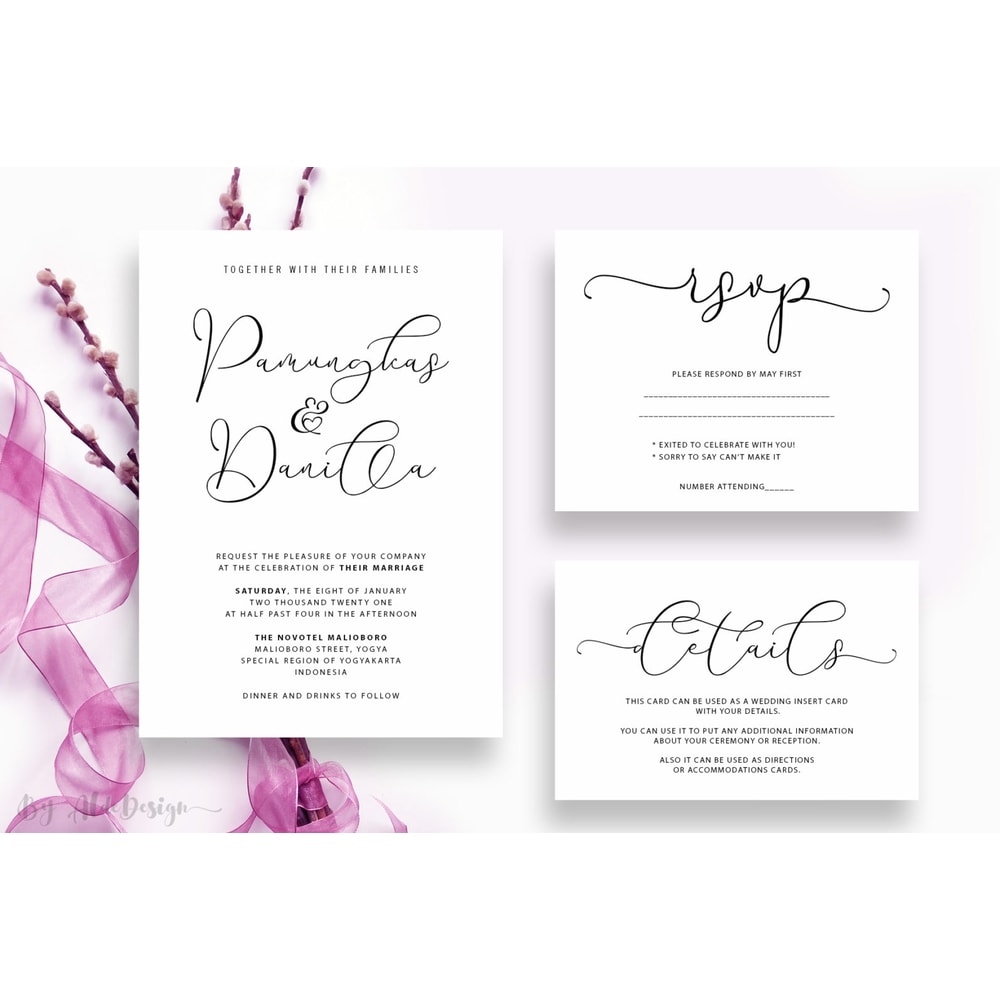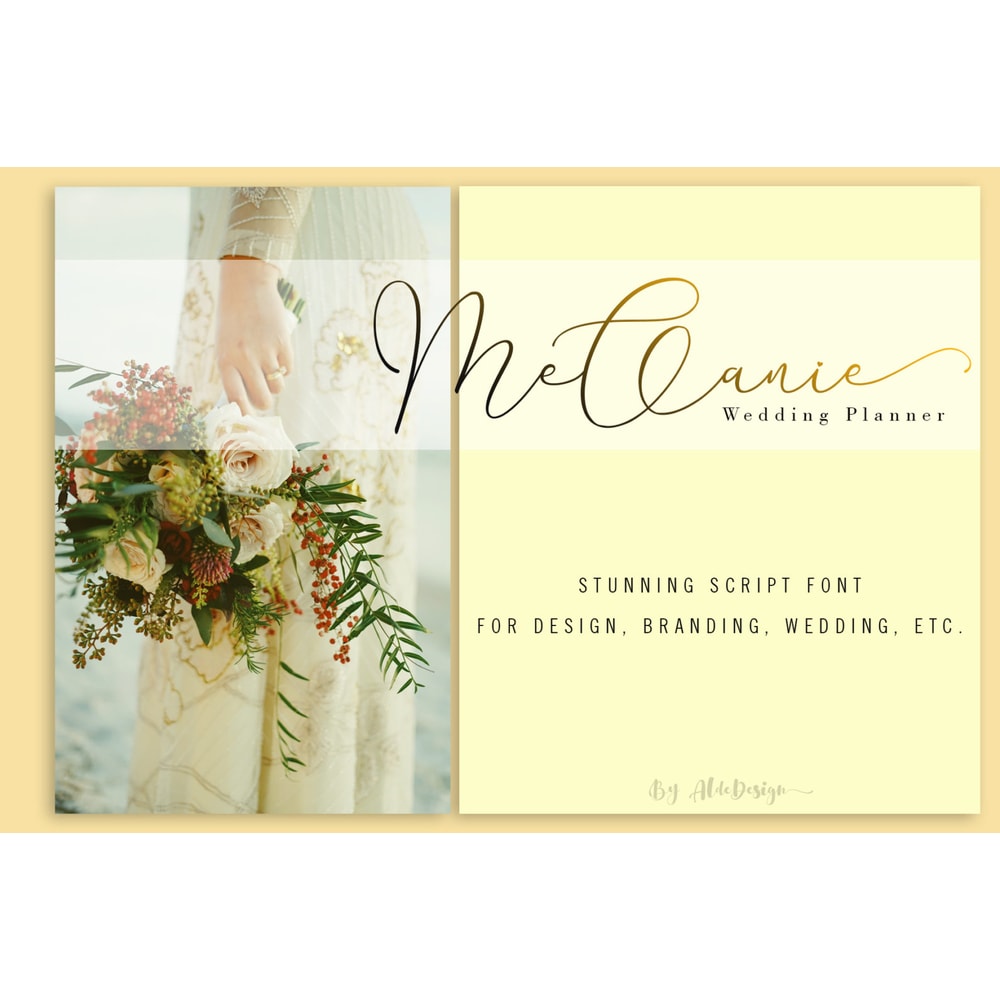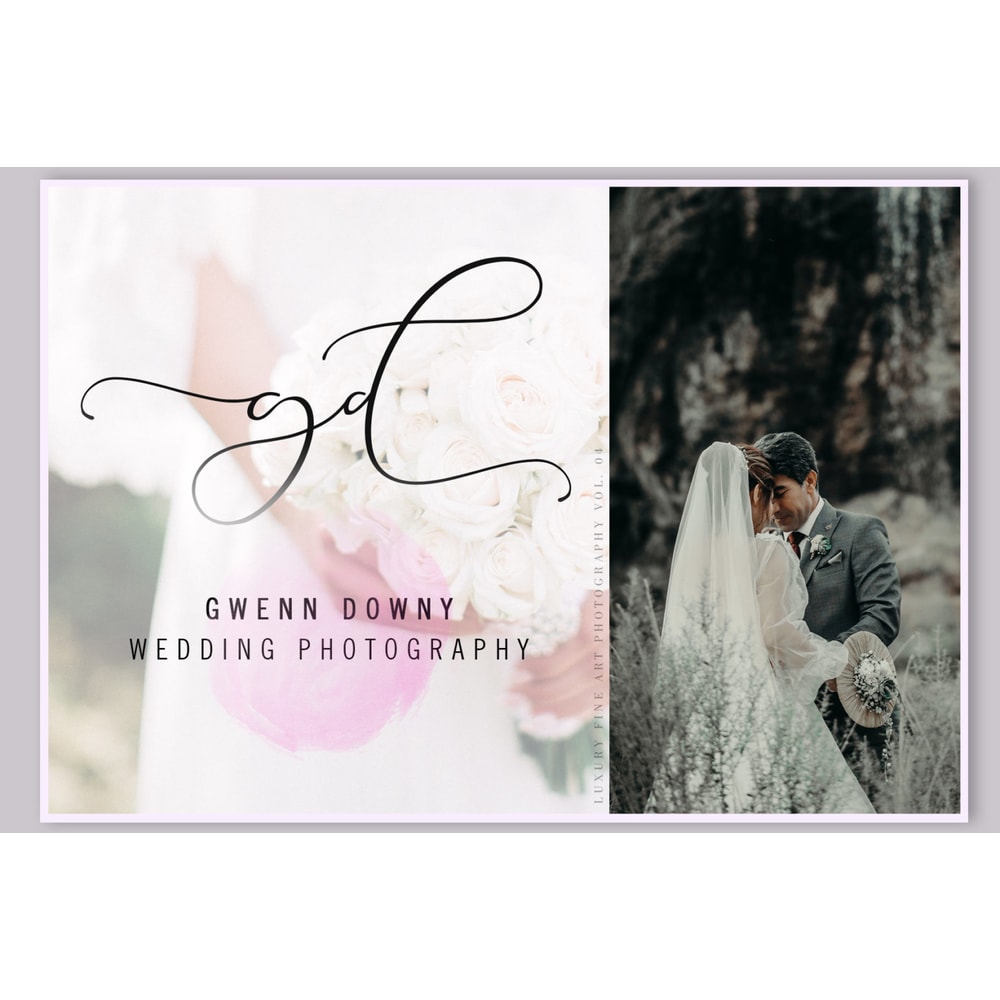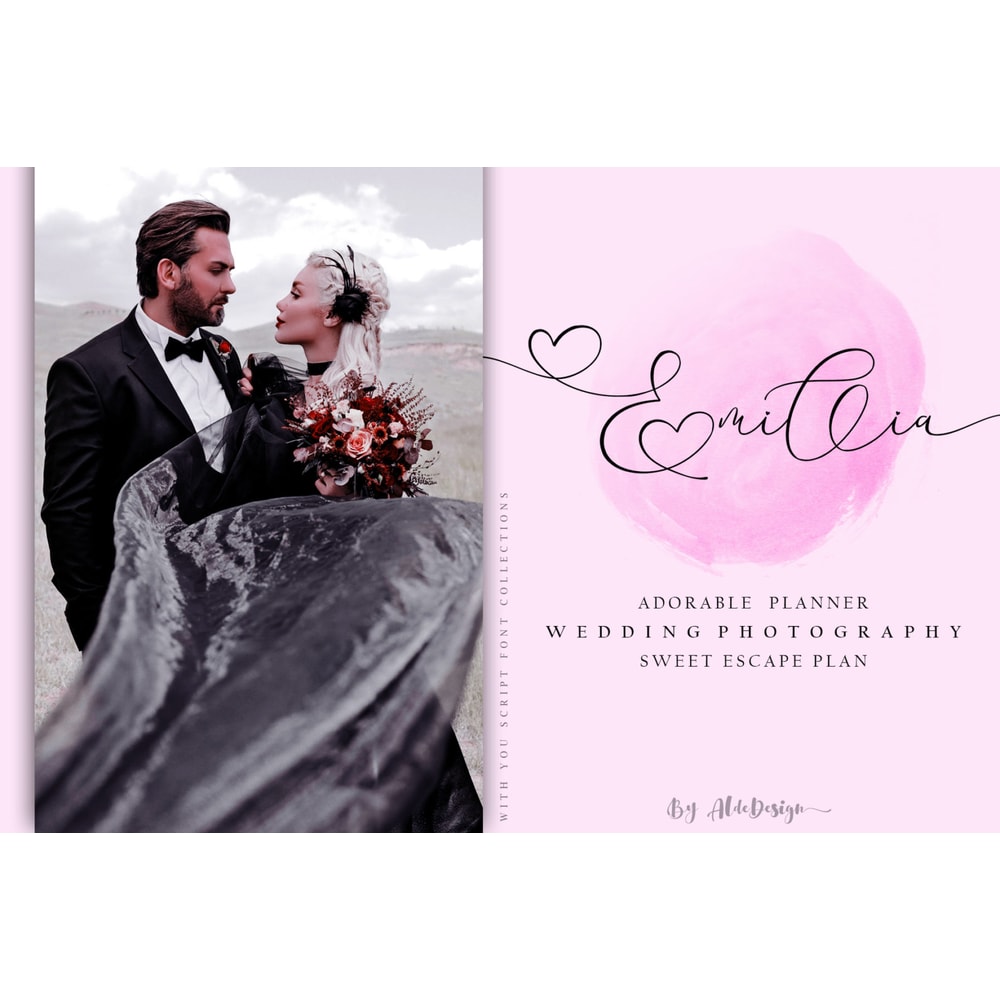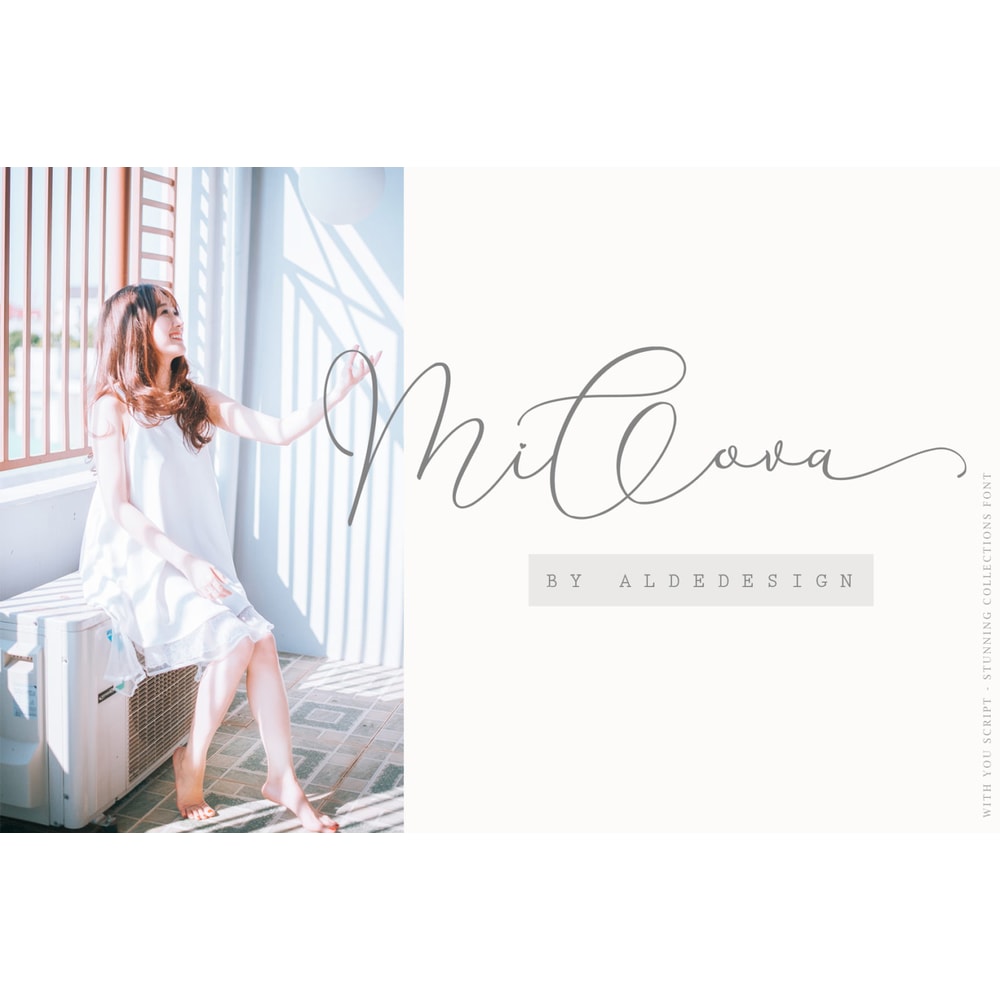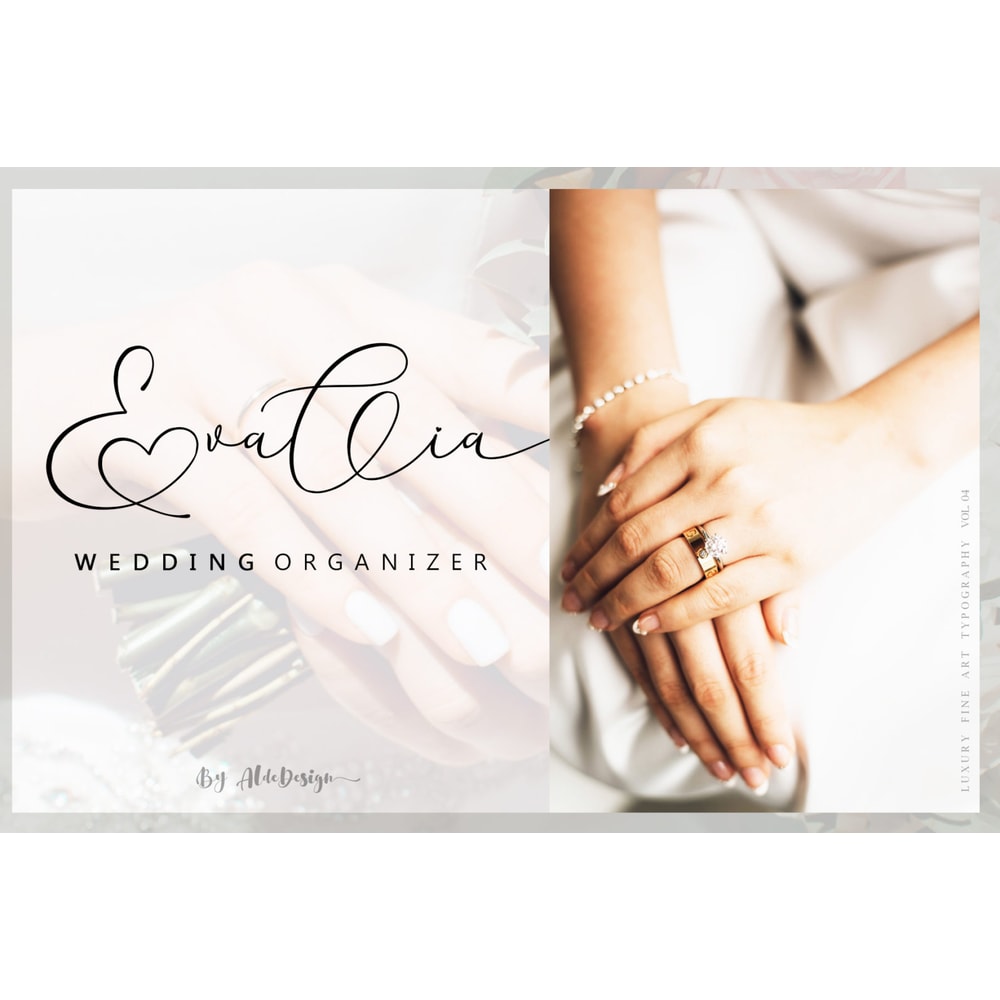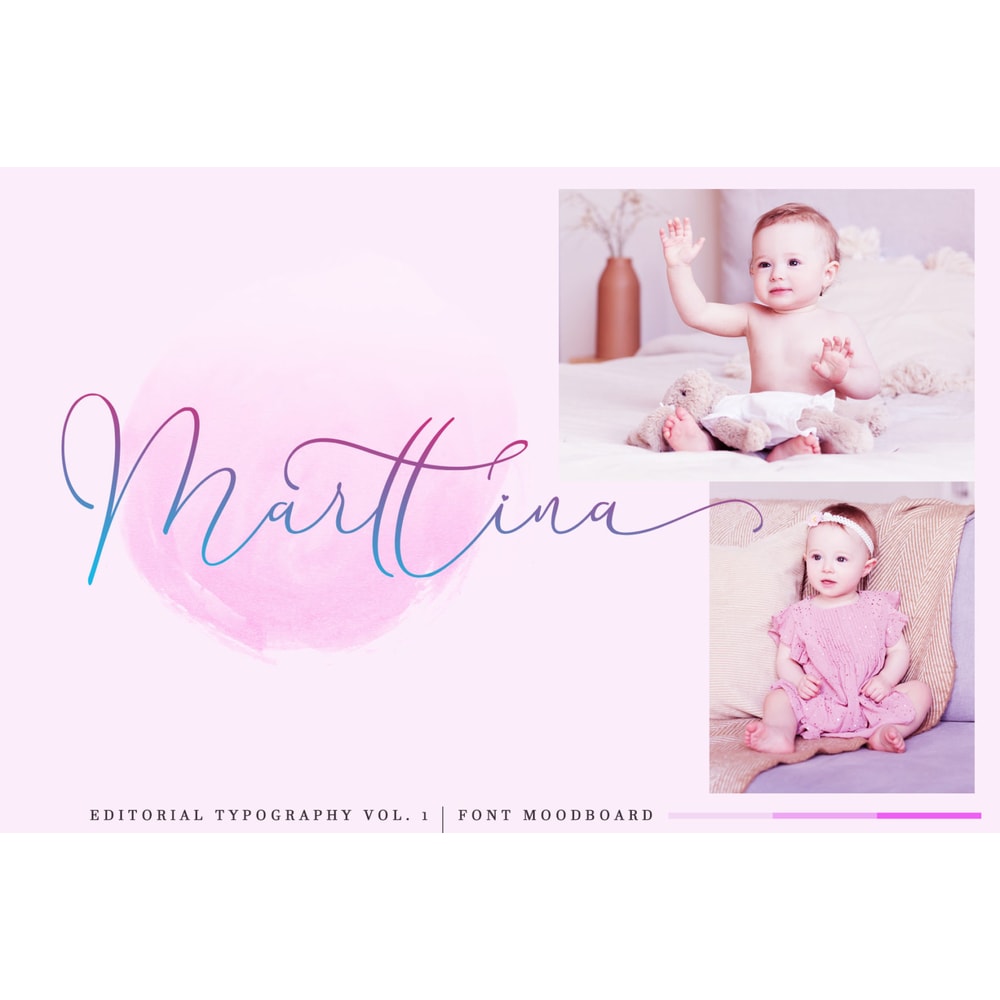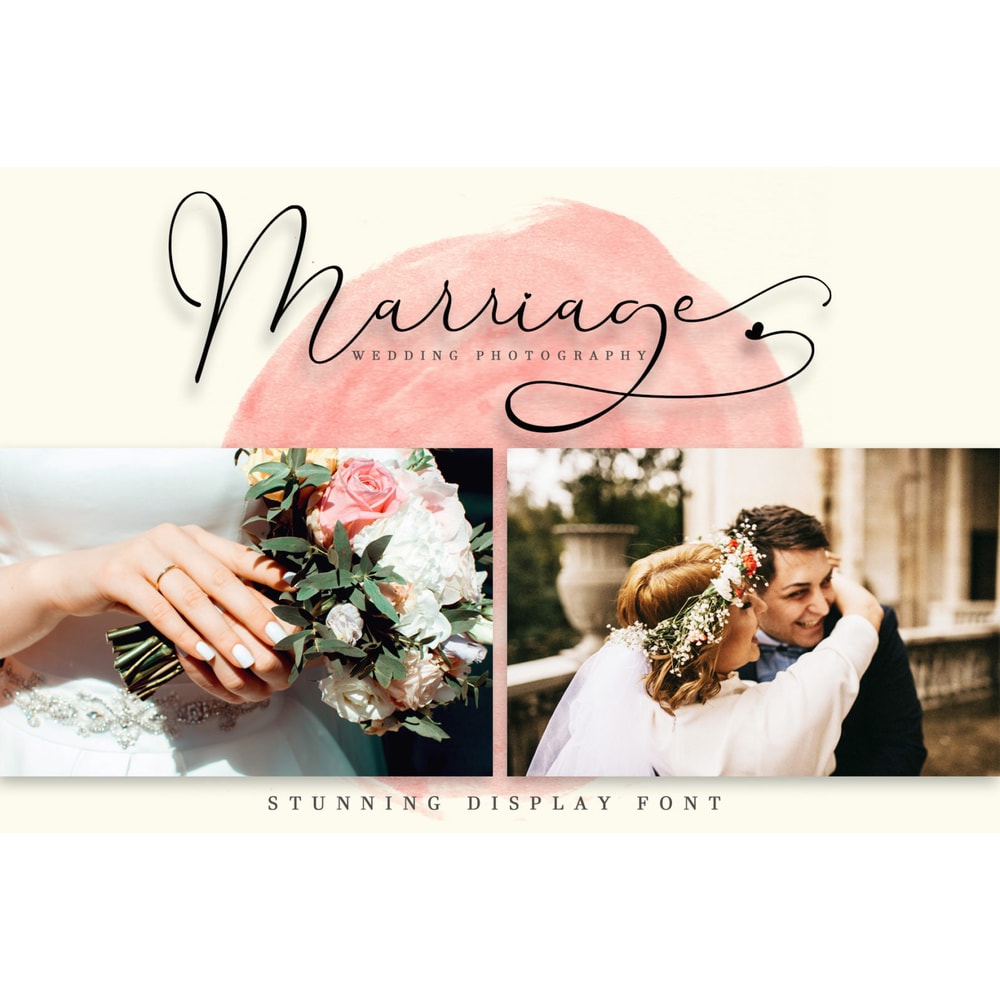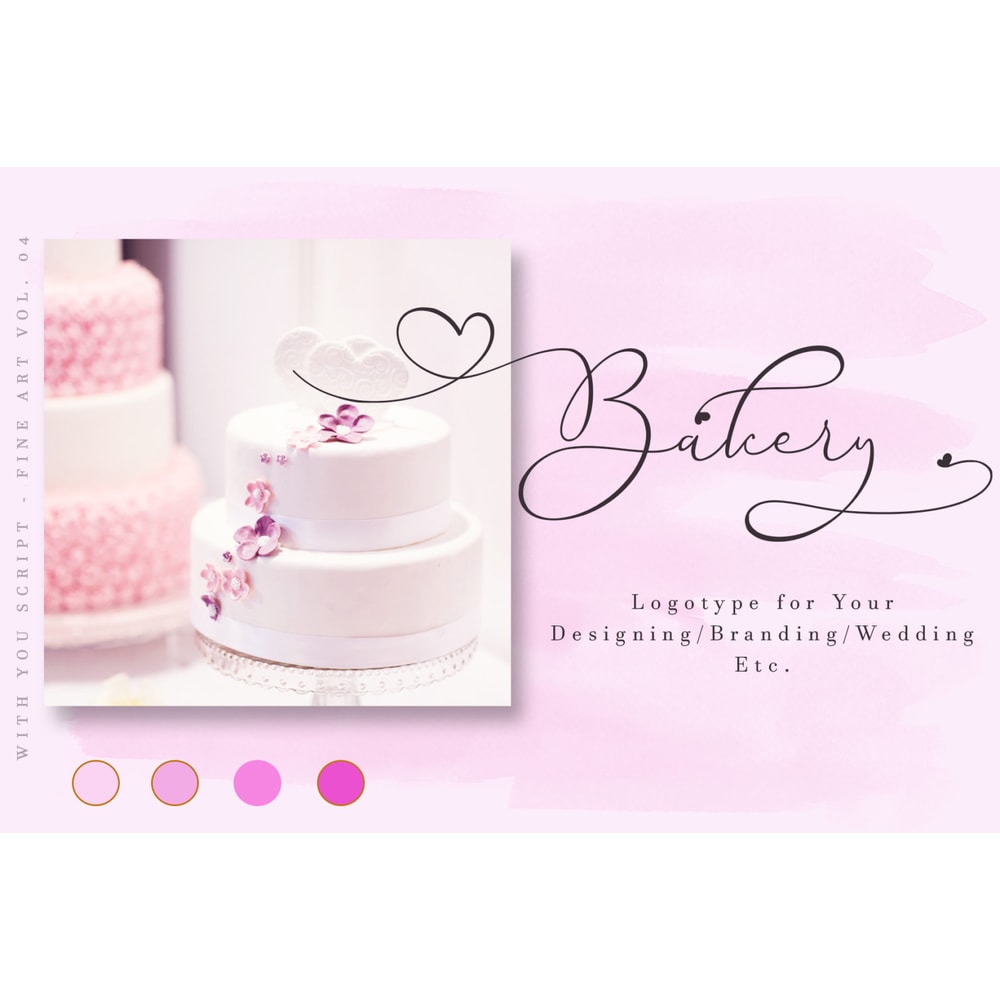
With You // Lovely Script Font is a stylish and lovely font that features a varying baseline, smooth line, modern, and with a depth love. For those of you who need a touch of love and modernity for your designs or branding, it can be used for various purposes such as headings, wedding, invitation, signature, logos, branding, t-shirt, letterhead, signage, labels, news, posters, badges, etc.
-Stylish handwritten style
-Beautiful Swash (Ending tail)
-Beautiful Titling (Beginning tail)
-Special Ligatures